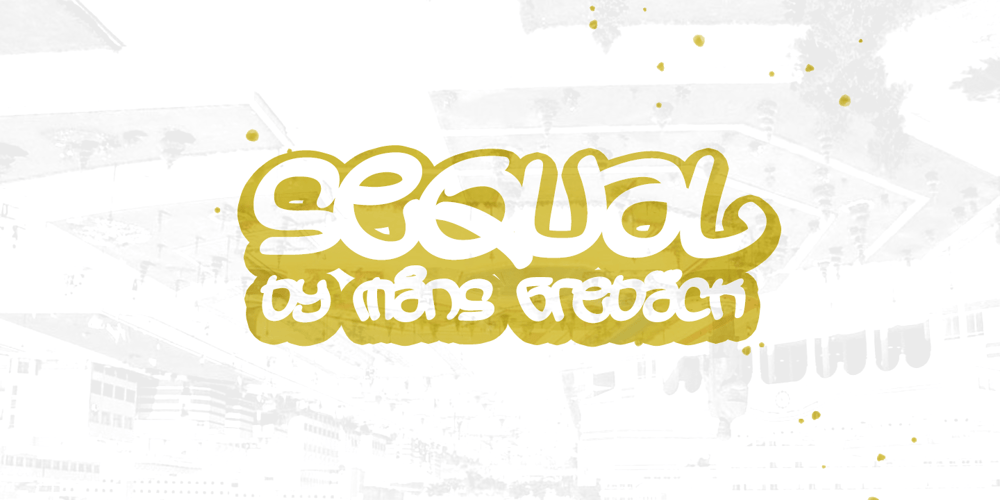
Sequal Font Family was designed by Måns Grebäck and published by Mans Greback. Sequal contains 5 styles and family package options. Sequal is a handwritten graffiti tag script. It was drawn and created by Måns Grebäck between 2018 and 2020.Its round and soft letters are youthful and active, and cool while being cute. Sequal is a typeface family of five weights: Thin, Light, Regular, Bold and Black. The different weights ensures usability in any context, while also giving the ability to emphasize phrases or words. The font supports hundreds of languages, including European and Asian Latin scripts.Composed of over 1250 glyphs, it is guaranteed to contain all characters you’ll ever need, including all punctuation and numbers. It also contains OpenType features such as alternates and ligatures.